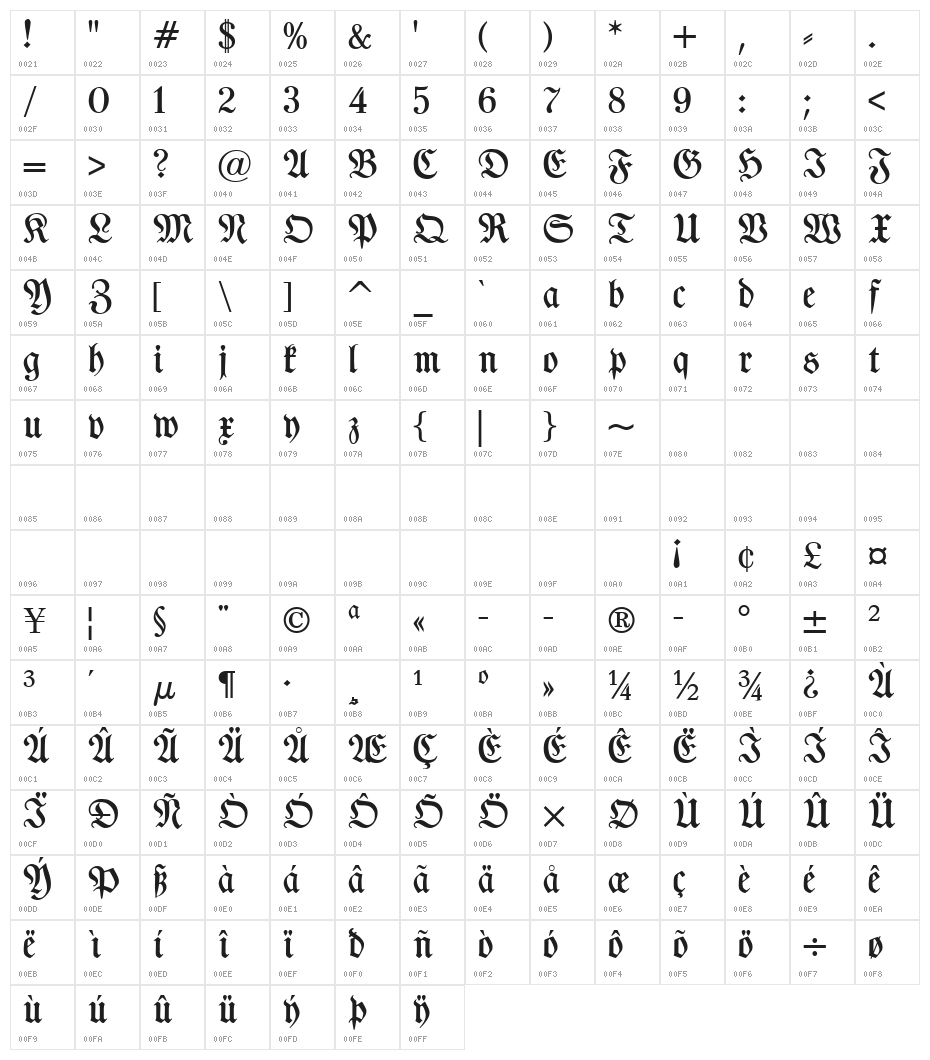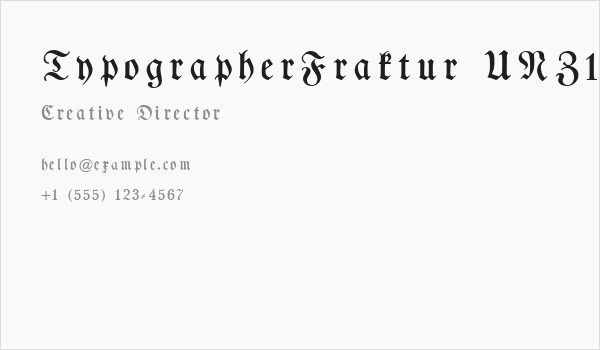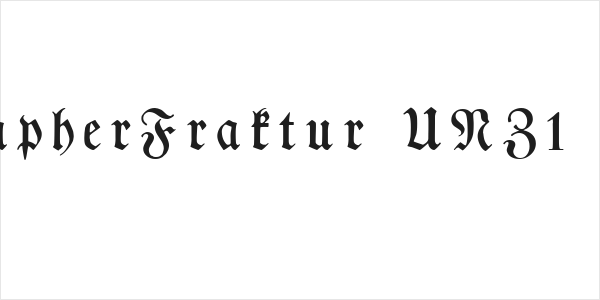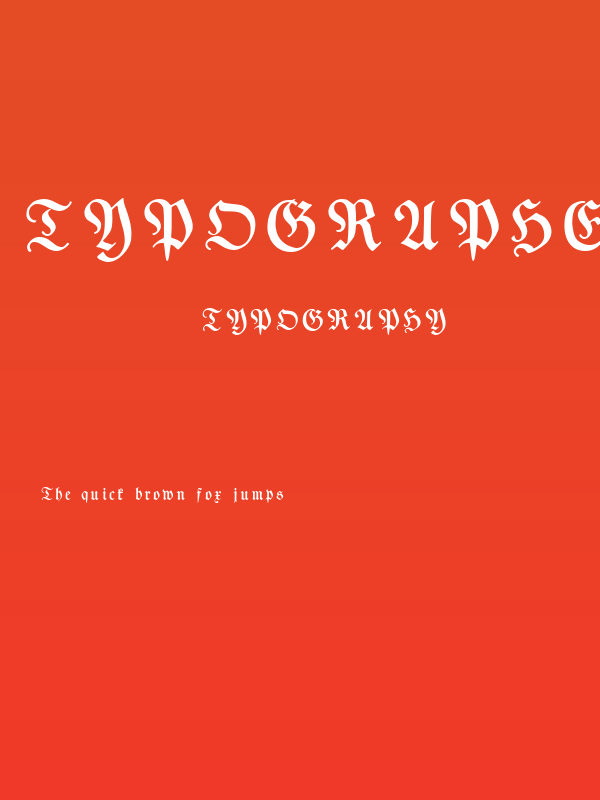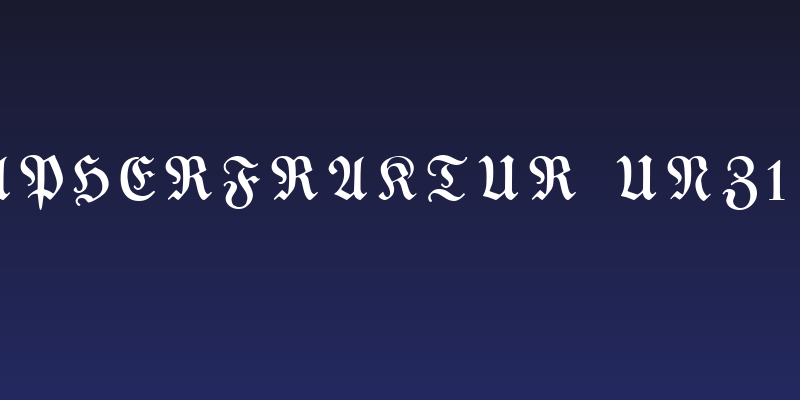
TypographerFraktur UNZ1 Medium Font
TypographerFraktur UNZ1 Medium Description
This font embodies the traditional elegance of blackletter typography, characterized by its intricate and ornate letterforms. The uppercase letters feature sharp, angular lines with elaborate flourishes, while the lowercase letters maintain a consistent style with slightly more rounded edges. The numerals are bold and distinct, complementing the overall aesthetic. Special characters are designed with the same attention to detail, enhancing the font's decorative appeal. This typeface evokes a sense of historical grandeur, making it ideal for projects that require a touch of classic sophistication.
| Use Case | Logos, Headlines, Decorative purposes |
| Proposed Projects | Ideal for wedding invitations, certificates, historical documents, branding for luxury products, and any project seeking a classic, sophisticated look. |